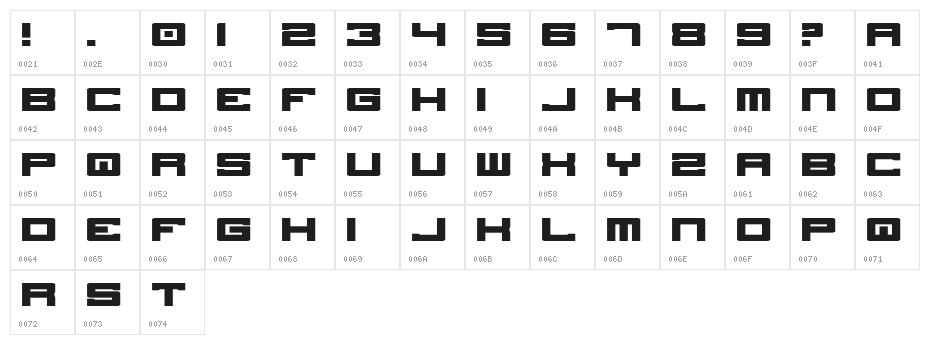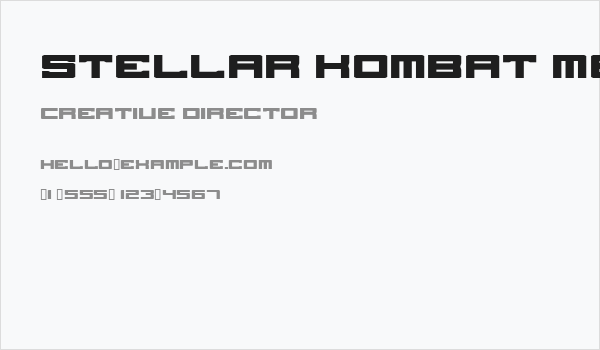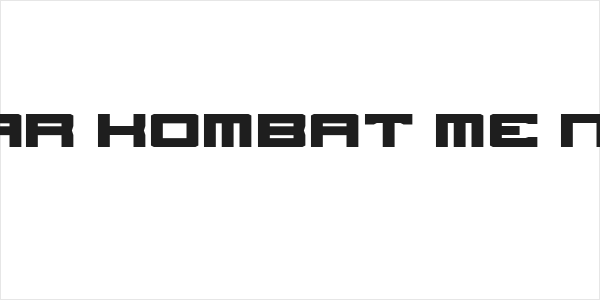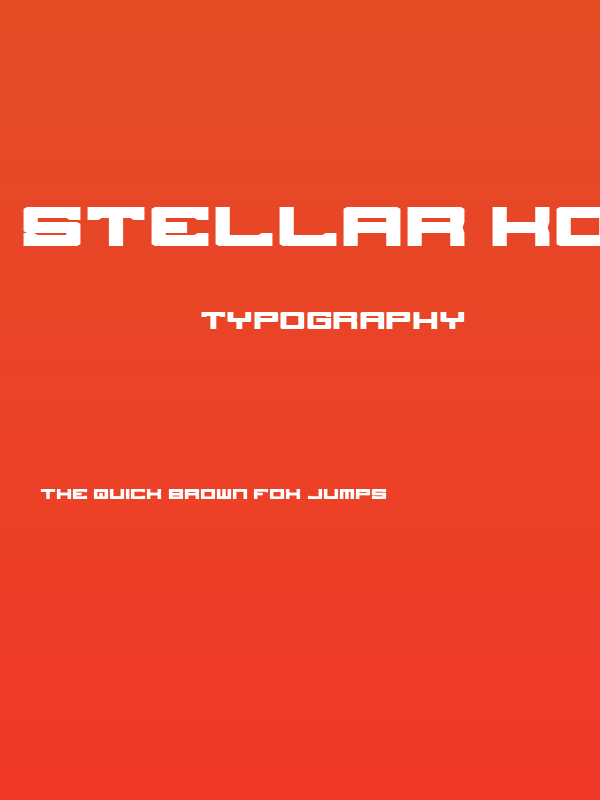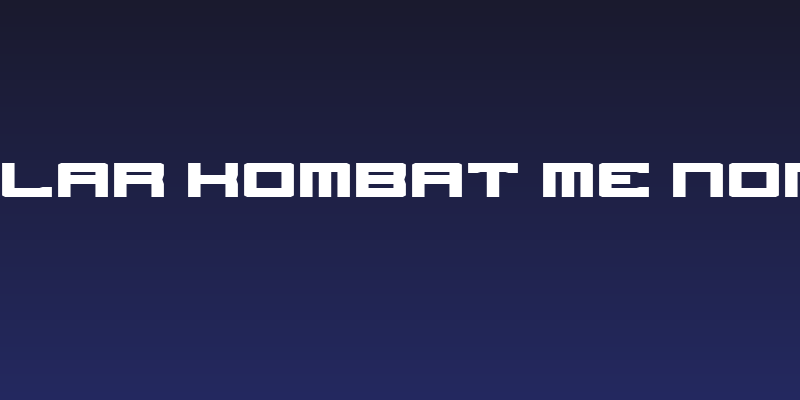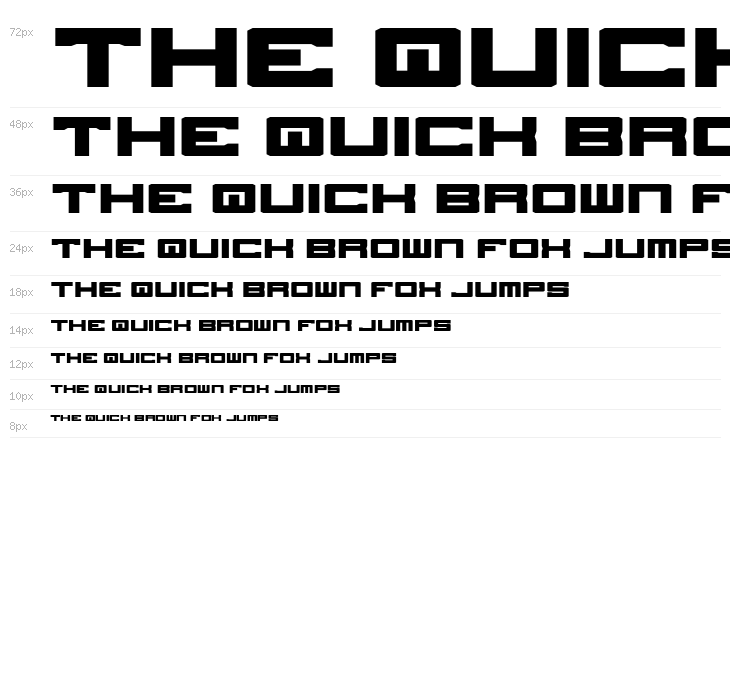
Stellar Kombat ME Nominal Font
Stellar Kombat ME Nominal Description
This font features a bold, futuristic design with strong geometric shapes and a blocky appearance. The characters are uniformly wide, giving a sense of stability and strength. The uppercase letters are particularly striking, with sharp angles and a consistent height that enhances readability. The numbers and special characters maintain the same bold style, ensuring a cohesive look across all text elements. The font's design is reminiscent of digital or sci-fi themes, making it ideal for projects that require a modern and technological aesthetic.
| Proposed Projects | Ideal for video game titles, tech branding, sci-fi movie posters, and digital interfaces. |